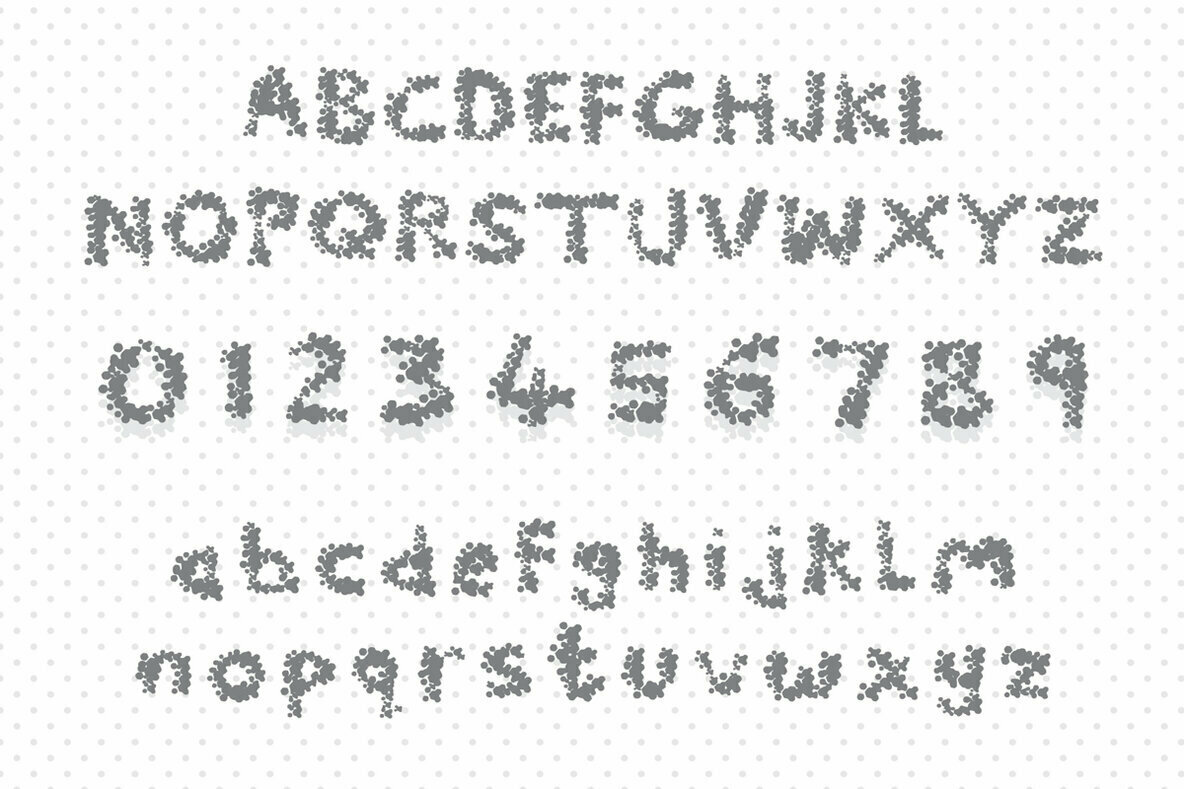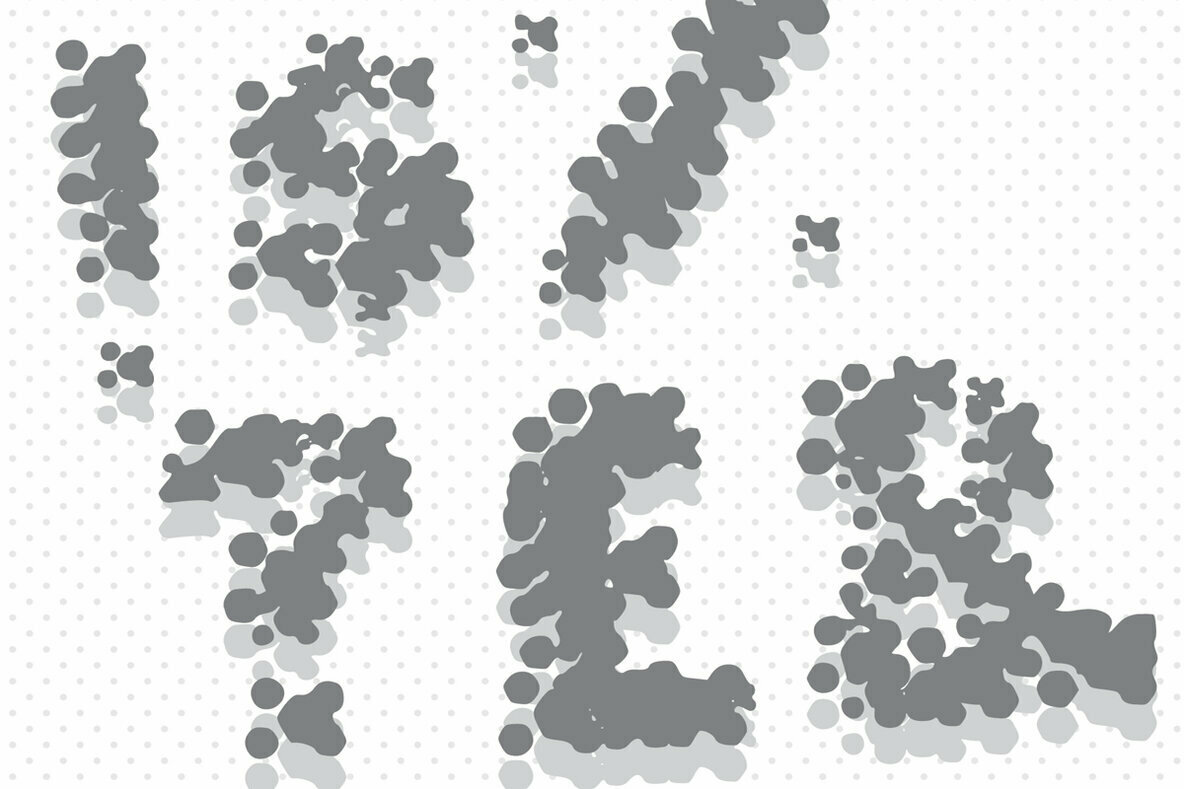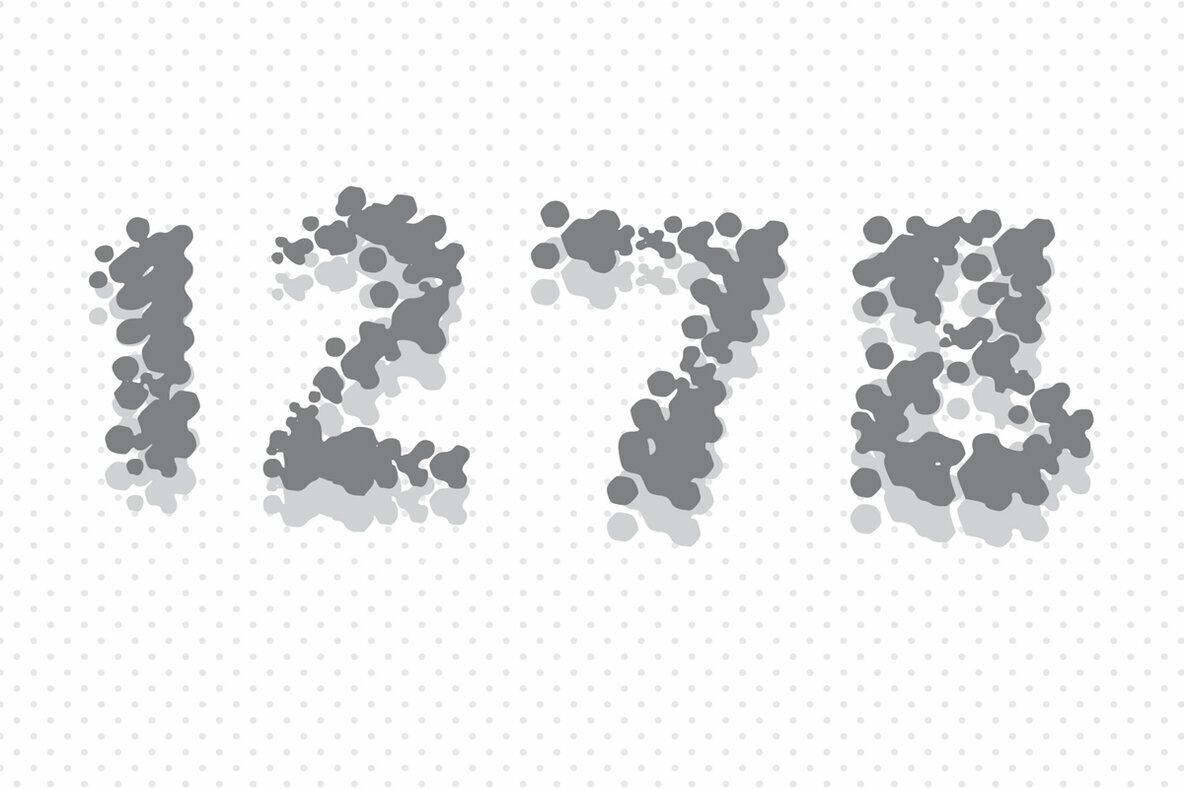
Half Tone Font
Half Tone
Half tone is a casual and fun display font, created by using a brush pen. Get creative with its unique look, and use it to brighten up your designs!